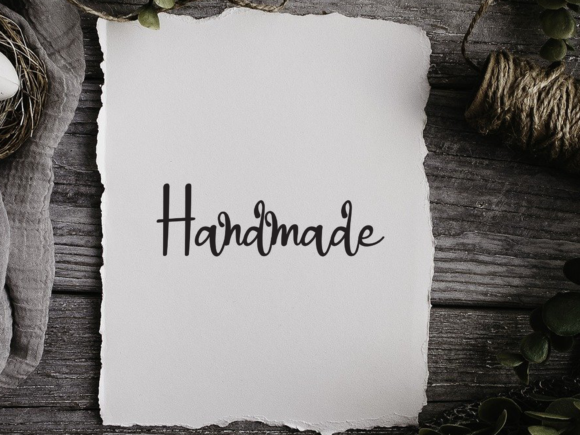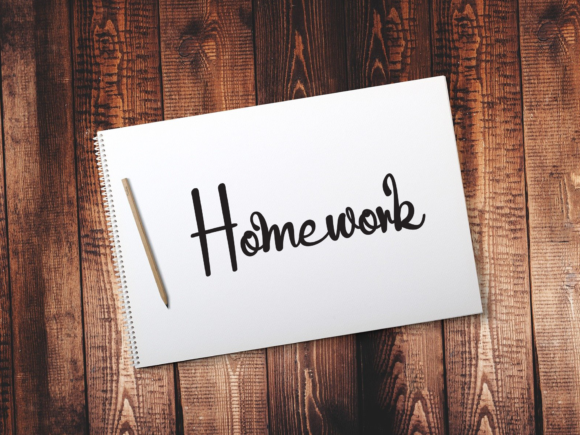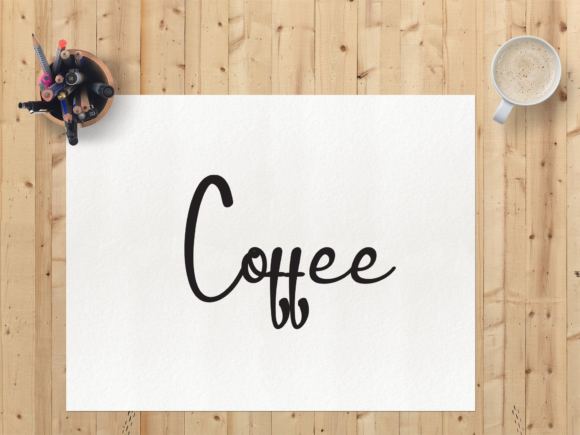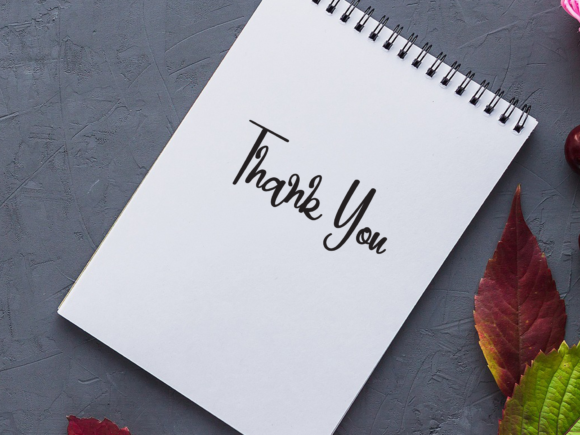
The Sweet Spot: Discovering Anatasya Font
I still remember the design project that led me to Anatasya Font. I was working on a whimsical branding project for a craft bakery, and I needed a font that would capture the warmth and playfulness of their brand. As I scoured the internet for the perfect handwritten font, I stumbled upon Anatasya, and it quickly became my go-to choice. In this article, I’ll share my experience with Anatasya Font, its features, and how to make the most of it in your designs.
An Honest Review of Anatasya Font
Here’s what I love about Anatasya Font:
- ✨ Sweet and playful vibe: Anatasya Font has a charming, handwritten feel that’s perfect for creative projects.
- ✅ Highly legible: Despite its playful nature, Anatasya Font is surprisingly easy to read, even at smaller font sizes.
- 🌈 Versatile: This font can be used for a wide range of projects, from branding and packaging to invitations and social media graphics.
However, I did notice a few quirks:
- 🤔 Limited character set: Anatasya Font might not have all the characters you need, especially when it comes to non-English languages.
- ⚠️ Not suitable for body text: While Anatasya Font is legible, it’s still a display font and might not be the best choice for long blocks of text.
- Experiment with OpenType features like ligatures and stylistic alternates to add personality to your text.
- Explore the Glyphs panel to access additional characters, ligatures, and stylistic alternates.
The Story Behind Anatasya Font
Anatasya Font was created with love and care by a talented type designer who wanted to craft a font that would bring a touch of sweetness to any design project. The designer drew inspiration from classic handwritten fonts, but with a modern twist. The result is a font that’s both playful and elegant, perfect for a wide range of creative projects.
| Font Name | Anatasya Font |
| Author | PAYJHOshop |
| What is Anatasya Font best used for? | Anatasya Font is perfect for creative projects that require a playful, handwritten touch, such as branding, packaging, invitations, and social media graphics. |
| Is Anatasya Font suitable for body text? | No, Anatasya Font is a display font and might not be the best choice for long blocks of text. It’s better suited for headings, titles, and short paragraphs. |
| Is Anatasya Font available in different languages? | Anatasya Font might not have a full character set for non-English languages, so it’s best to check the font’s capabilities before using it for multilingual projects. |